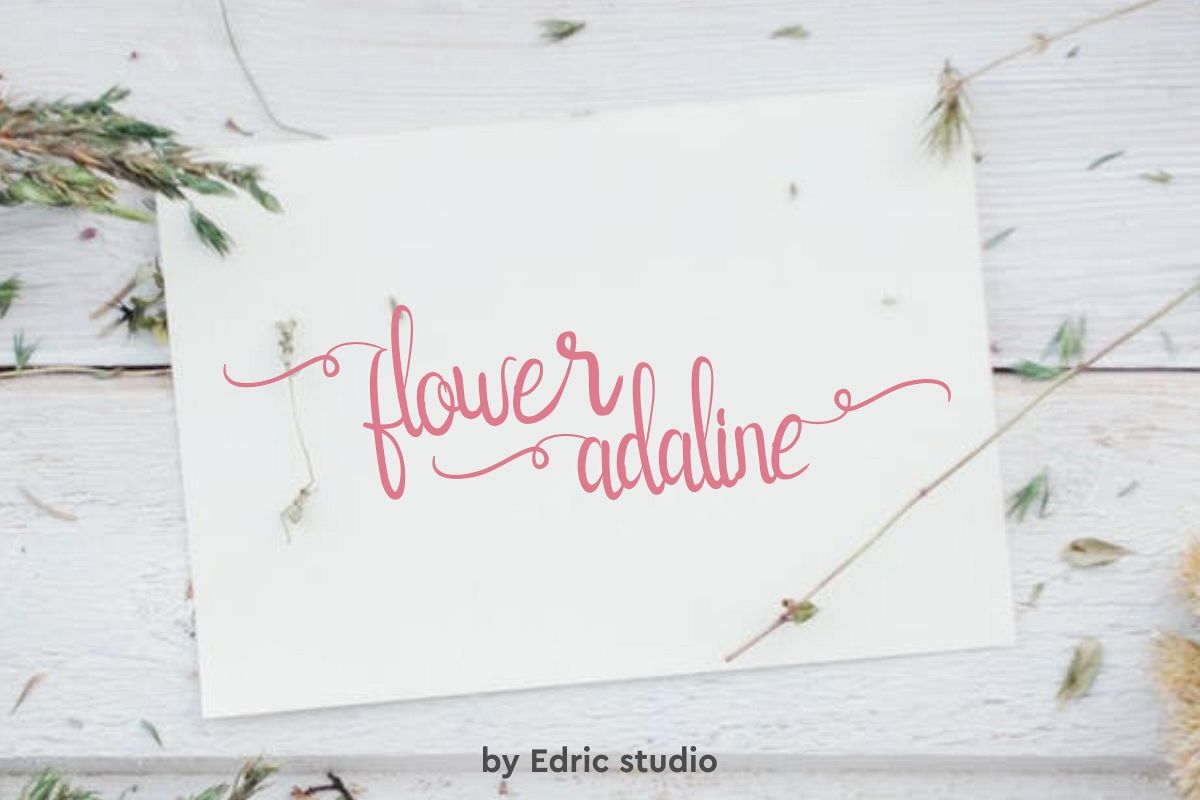
flower adaline
FlowerAdaline Script is a handmade script font with a handwriting style.This font will Work on PC & Mac with Simple installations. Accessible in the Adobe Illustrator, Adobe Photoshop, Adobe InDesign, even work on Microsoft Word. It’s also PUA Encoded Characters – Fully accessible without additional design software.